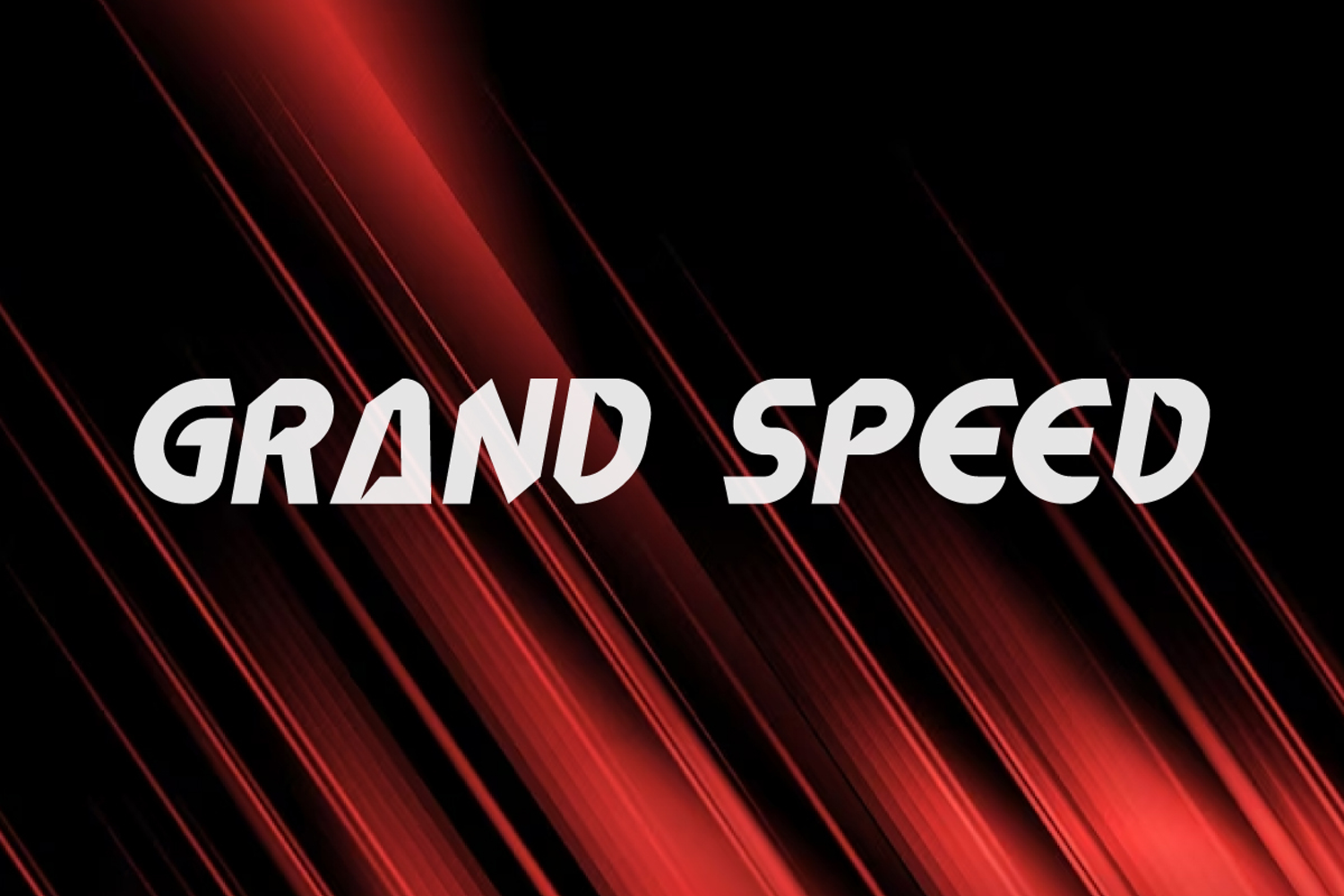
Grand Speed Font is a cool display font with a racing theme. Its quirky, bold and slightly slanted shape makes this font stand out firmly. It would be perfect for automotive posters, branding, game covers, headlines, logos, product labels, signage, stickers, t-shirt designs, titles, websites, and other creative projects.
Grand Speed Font includes full set of ALL CAPS for Uppercase and Lowercase Basic Characters, Numbers, Punctuation, and Symbols . It is specially created for sports and action related contexts. With a modern and energetic aesthetic, this font exudes strength and athleticism. This font is suitable for action, automotive, cafeteria, movie, races, sporting events, sportwear, technology, and much more.